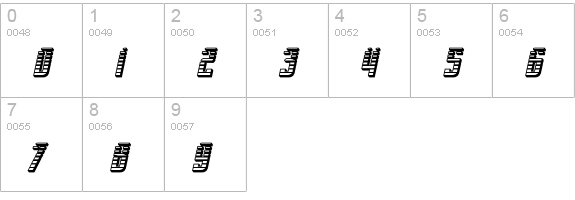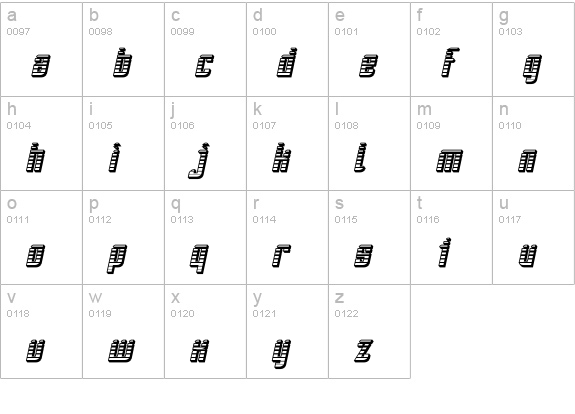
SF Piezolectric SFX Oblique Font Details
SF Piezolectric SFX Oblique is a distinctive, italic variant in the SF typeface family \xE2\x80\x94 well suited to design and typography projects.
SF Piezolectric SFX Oblique font is a stunning display font that exudes an electrifying energy. Its unique and dynamic design is sure to make a bold statement in any project you undertake. The oblique angle adds an extra touch of sophistication and modernity, making it perfect for futuristic and tech-themed designs. This font is powered by piezoelectricity, which is the ability of certain materials to generate an electric charge in response to applied mechanical stress. The result is a font that radiates with the energy and excitement of a high-voltage current, creating a visual impact that captures attention and commands the viewer's gaze. With its sharp edges and sleek lines, SF Piezolectric SFX Oblique font is ideal for headlines, logos, posters, and any other design that demands attention. It is the perfect choice for projects in the fields of technology, science fiction, gaming, and more. What's even better is that SF Piezolectric SFX Oblique font is freely available to download at FontsMarket.com. This means that you can easily access and utilize this extraordinary font in your creative endeavors without any cost. So why wait? Take your designs to the next level with SF Piezolectric SFX Oblique font and electrify your audience with its powerful and captivating presence. Download it now for free at FontsMarket.com and let your creativity soar to new heights.